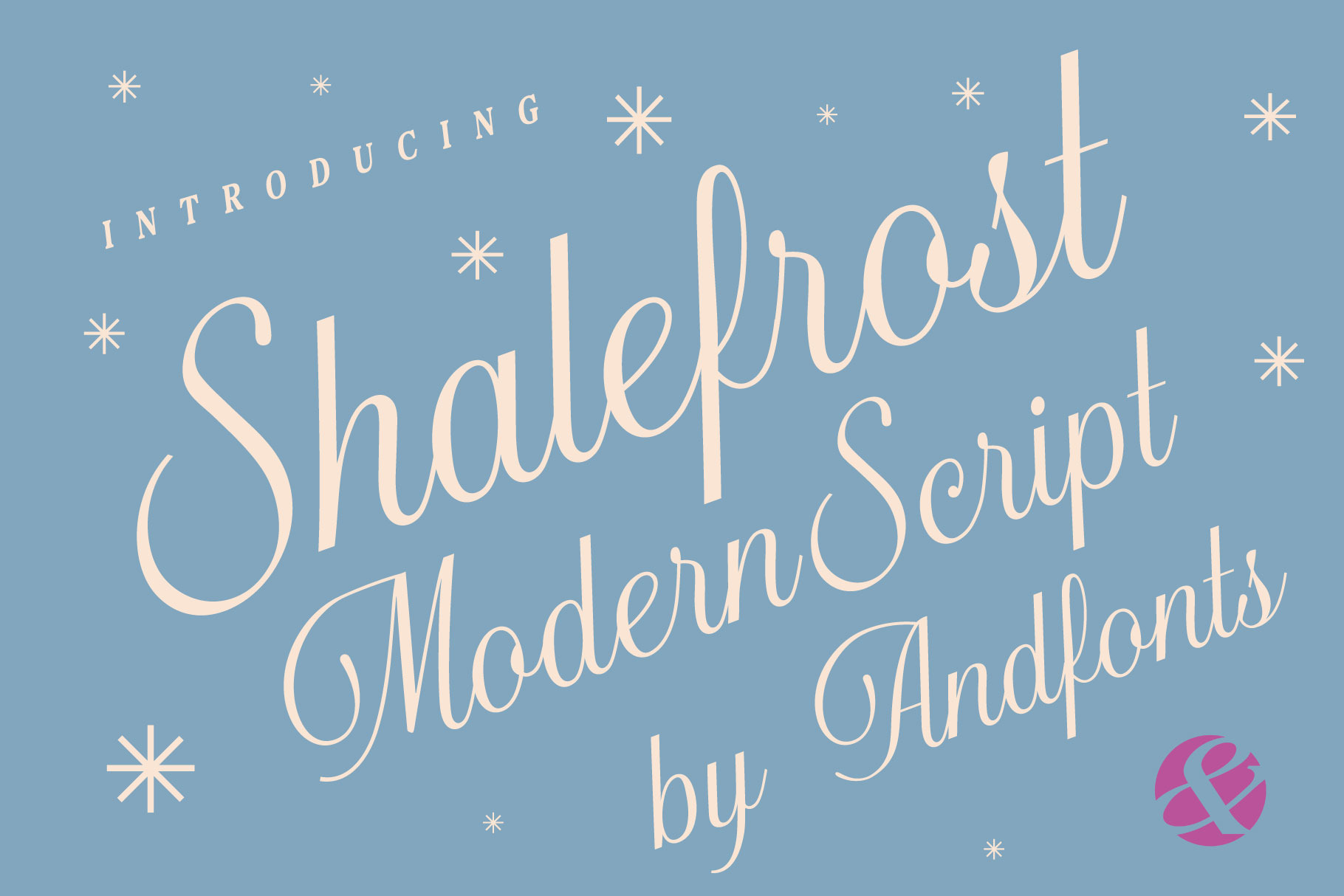
Shalefrost Nova: Calligraphy Font
Introducing Shalefrost Nova: a calligraphic typeface that blends timeless tradition with modern edge. Its fluid, hand-drawn strokes evoke classic elegance, while crisp, contemporary details make it perfect for bold presentation titles that demand attention.